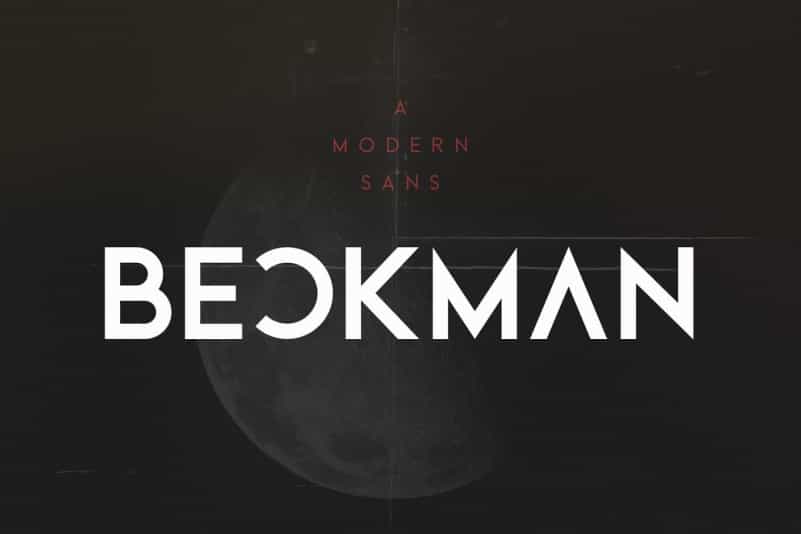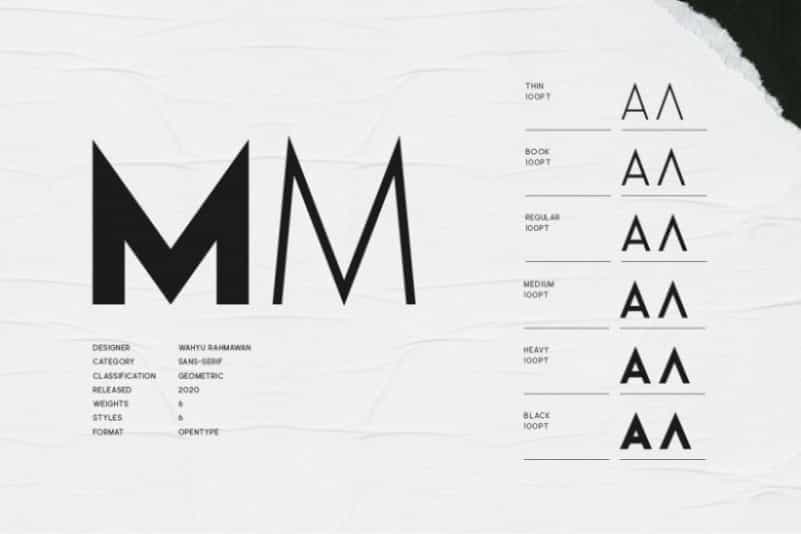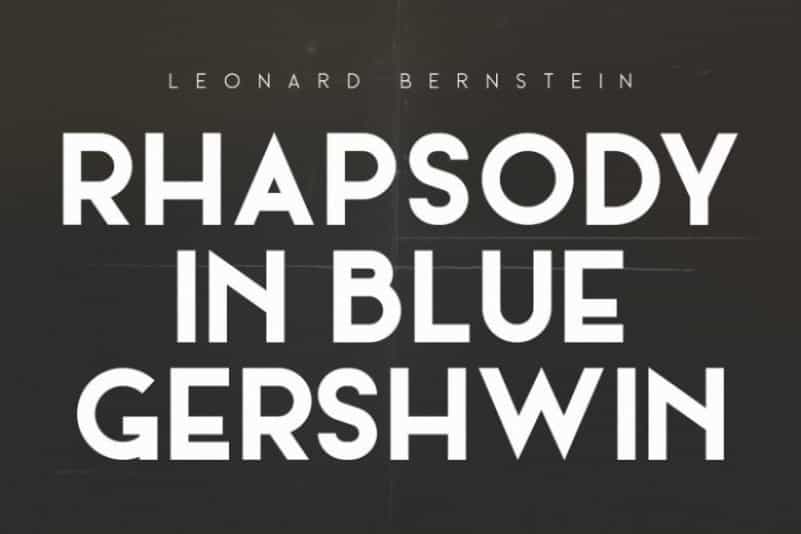
It is bit futuristic and at the same time gives a feeling of avant grade with wedges in the letterforms. The best fit for science fiction projects or any other purposes of display. Beckman Font is created and published by Factory738.